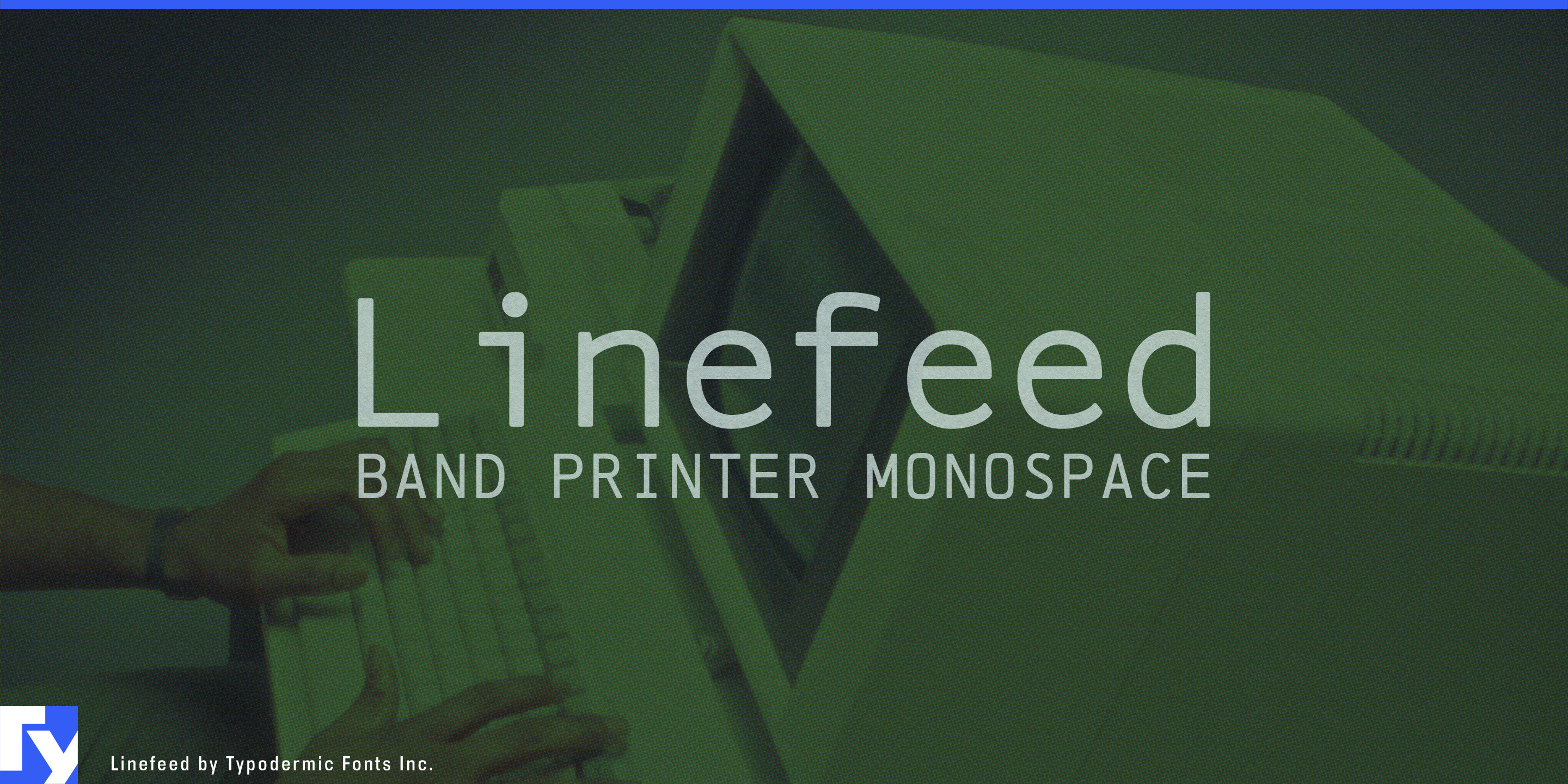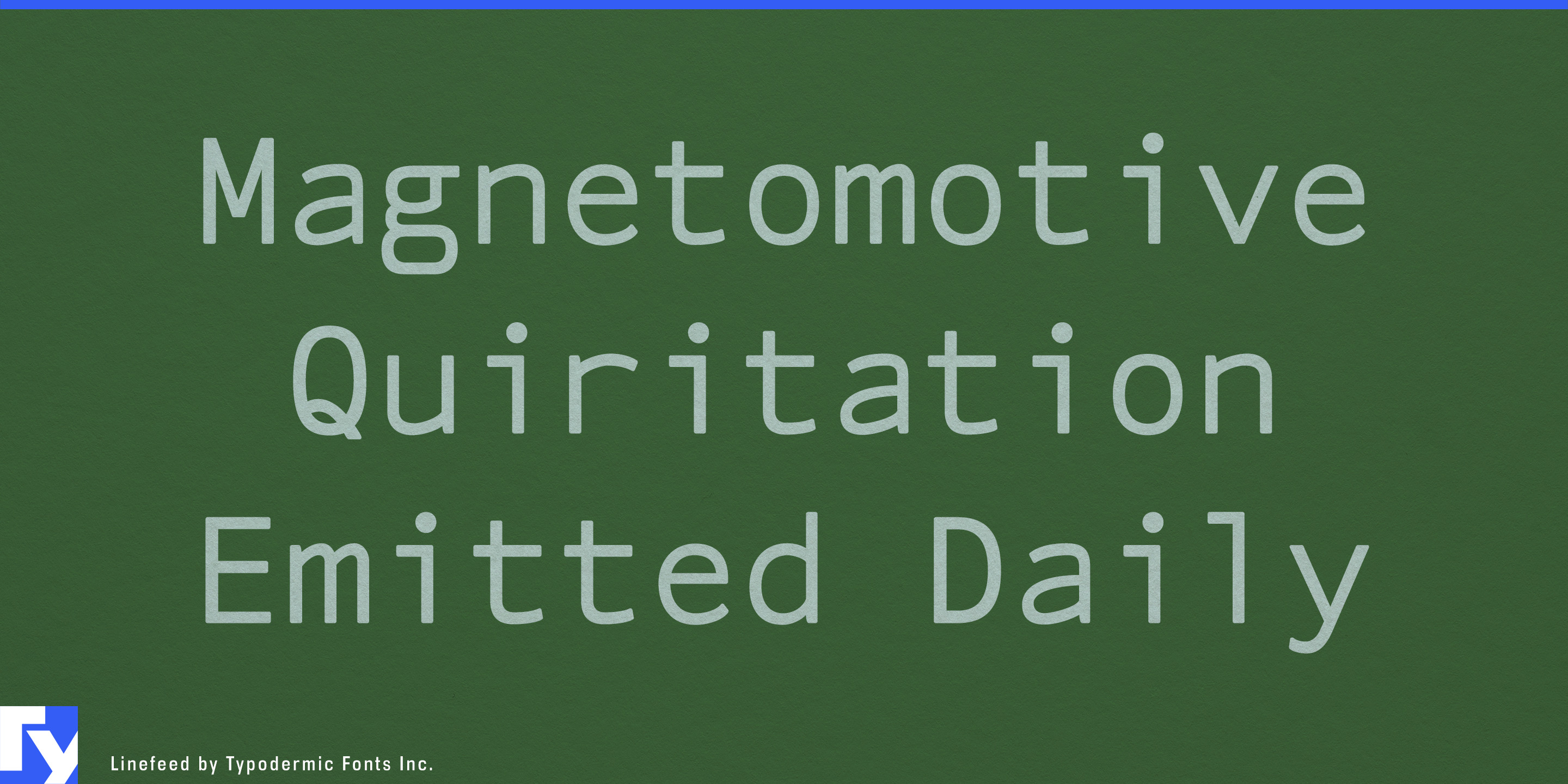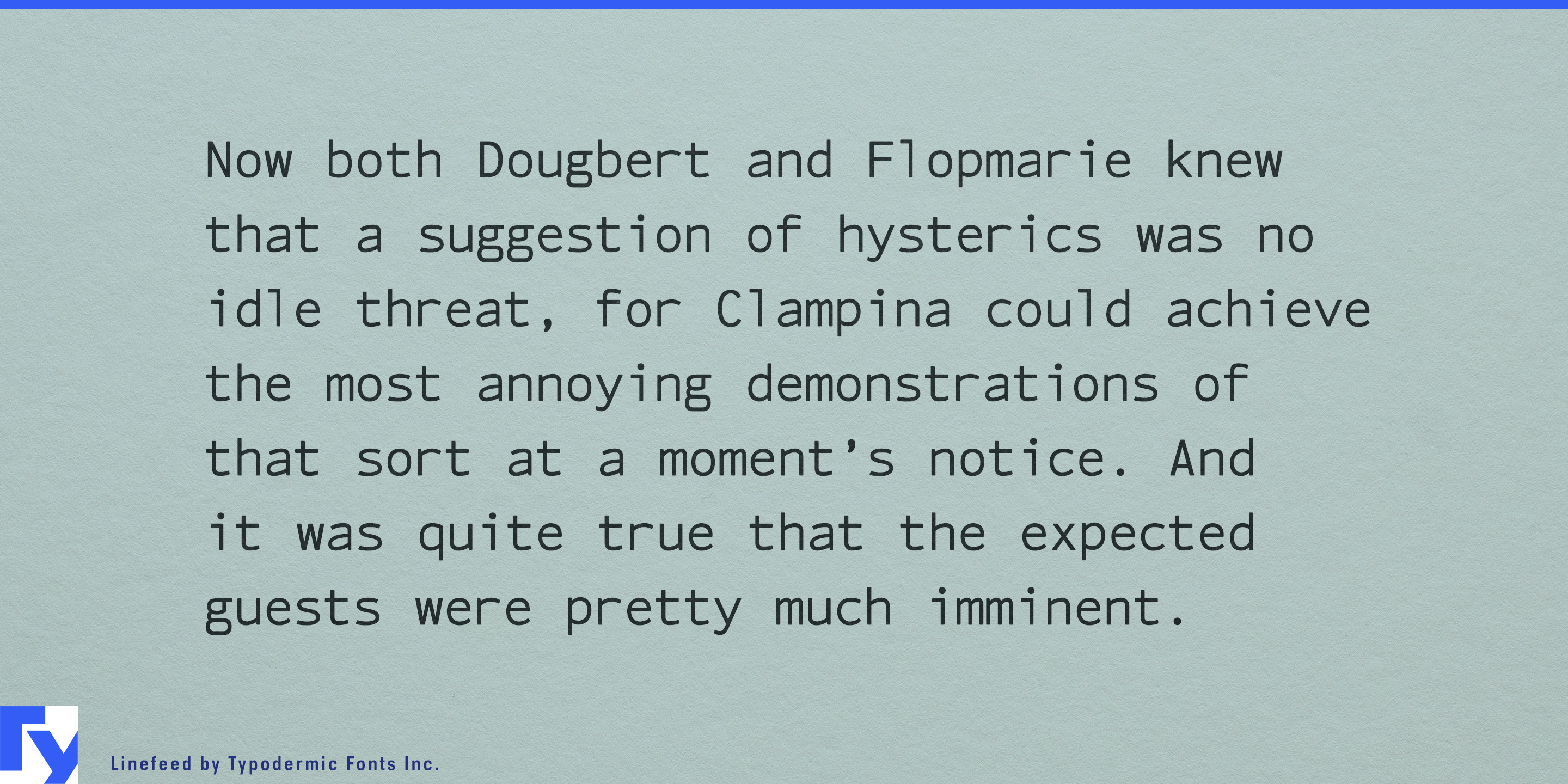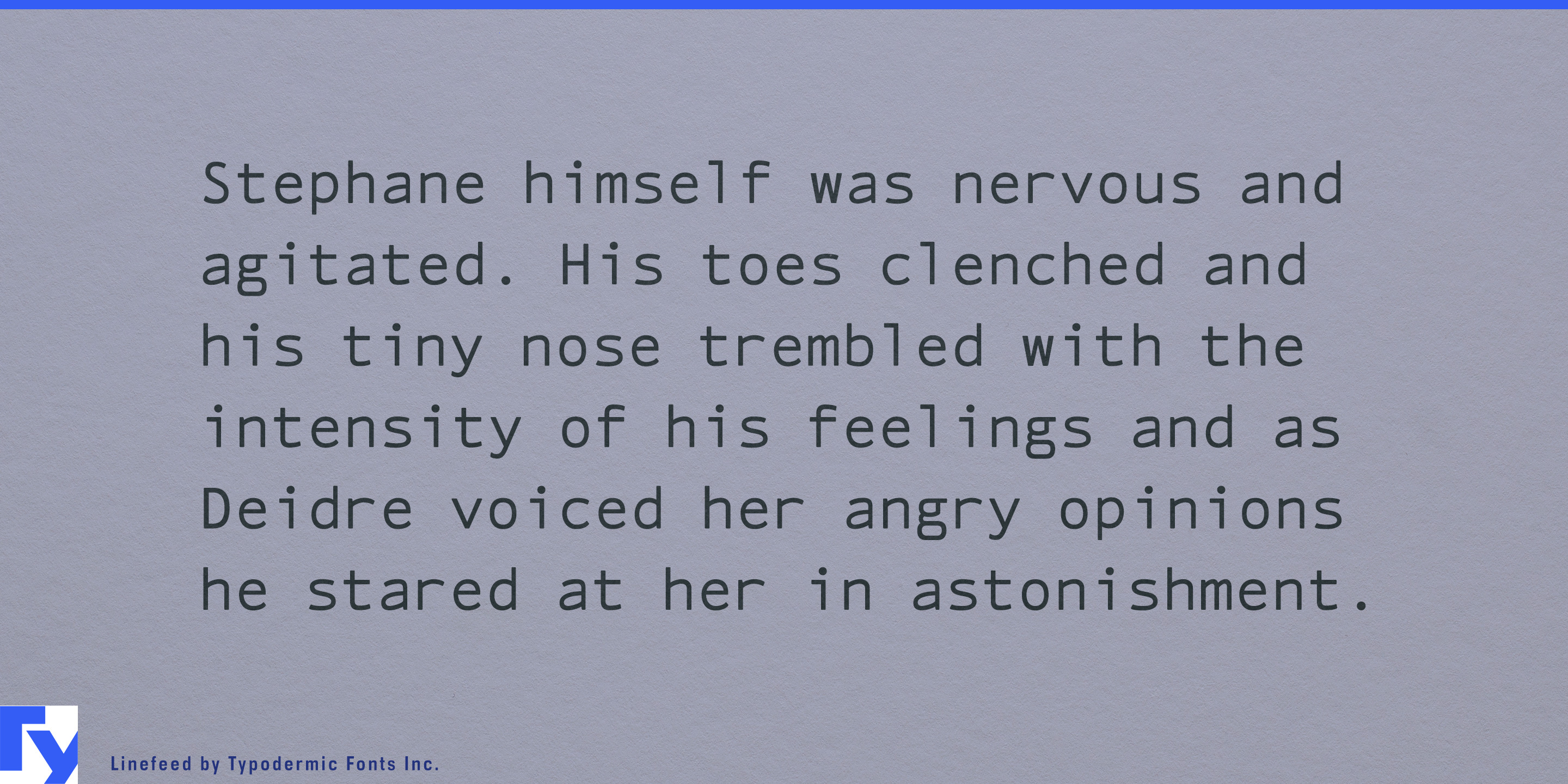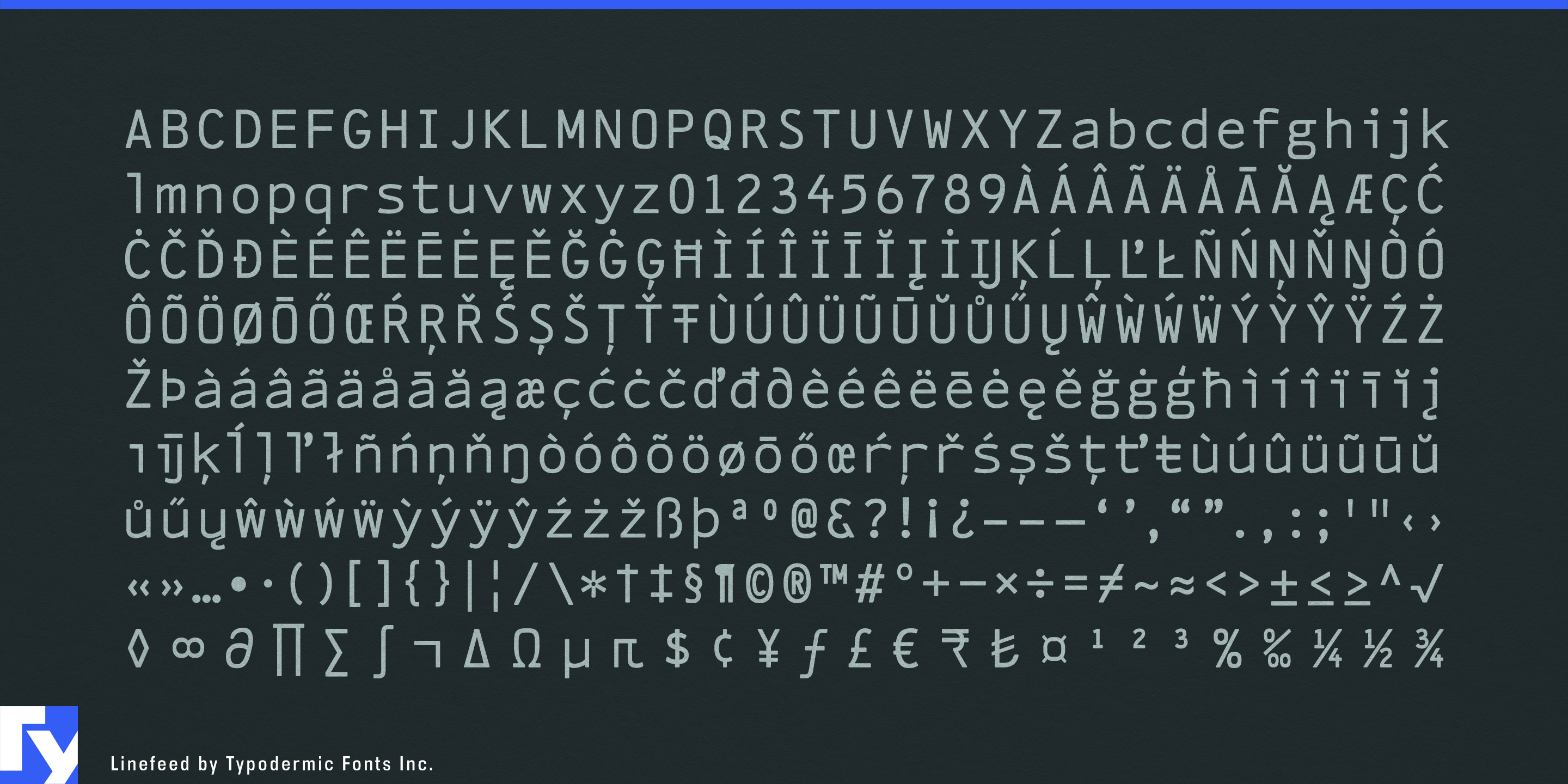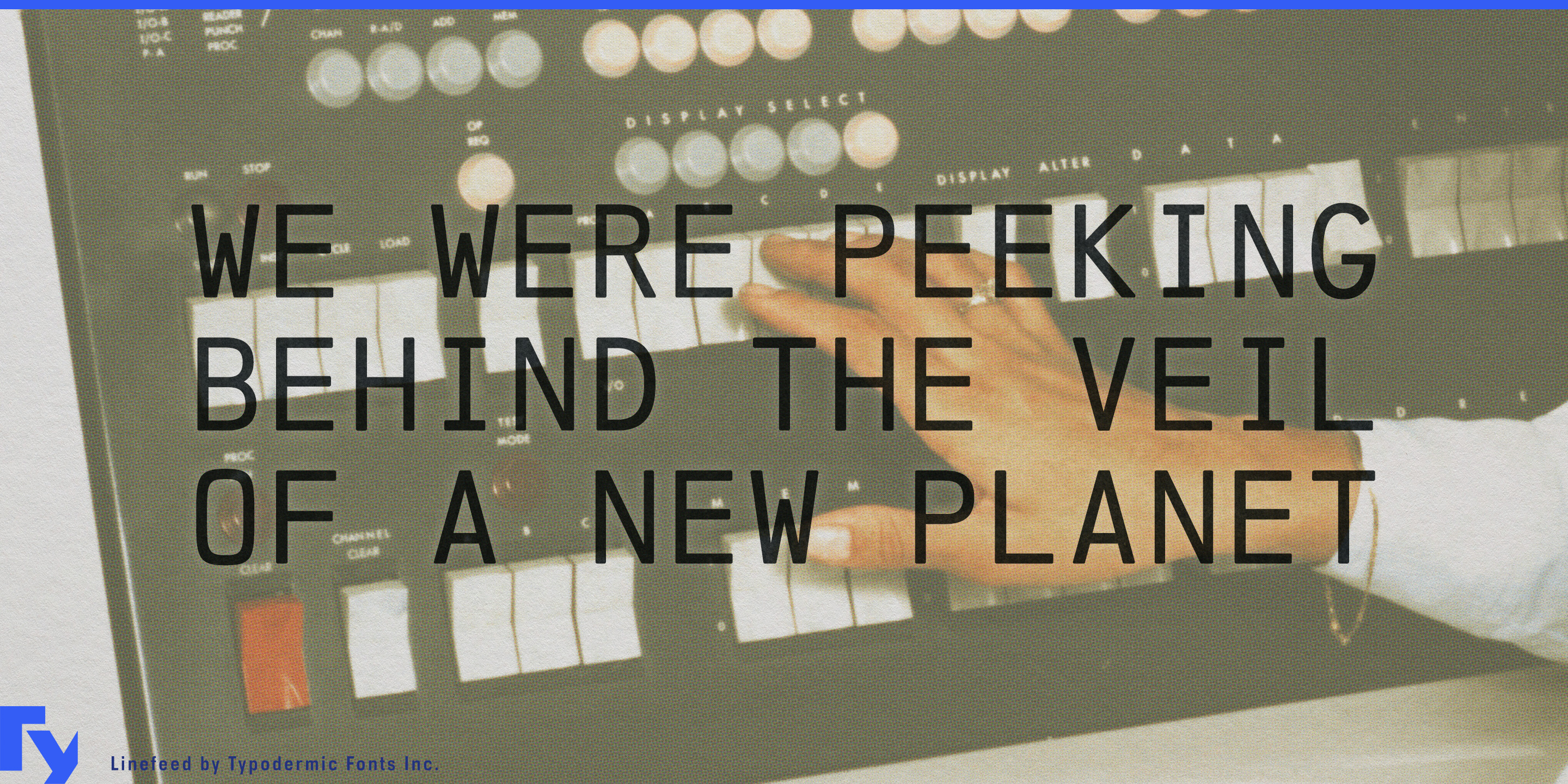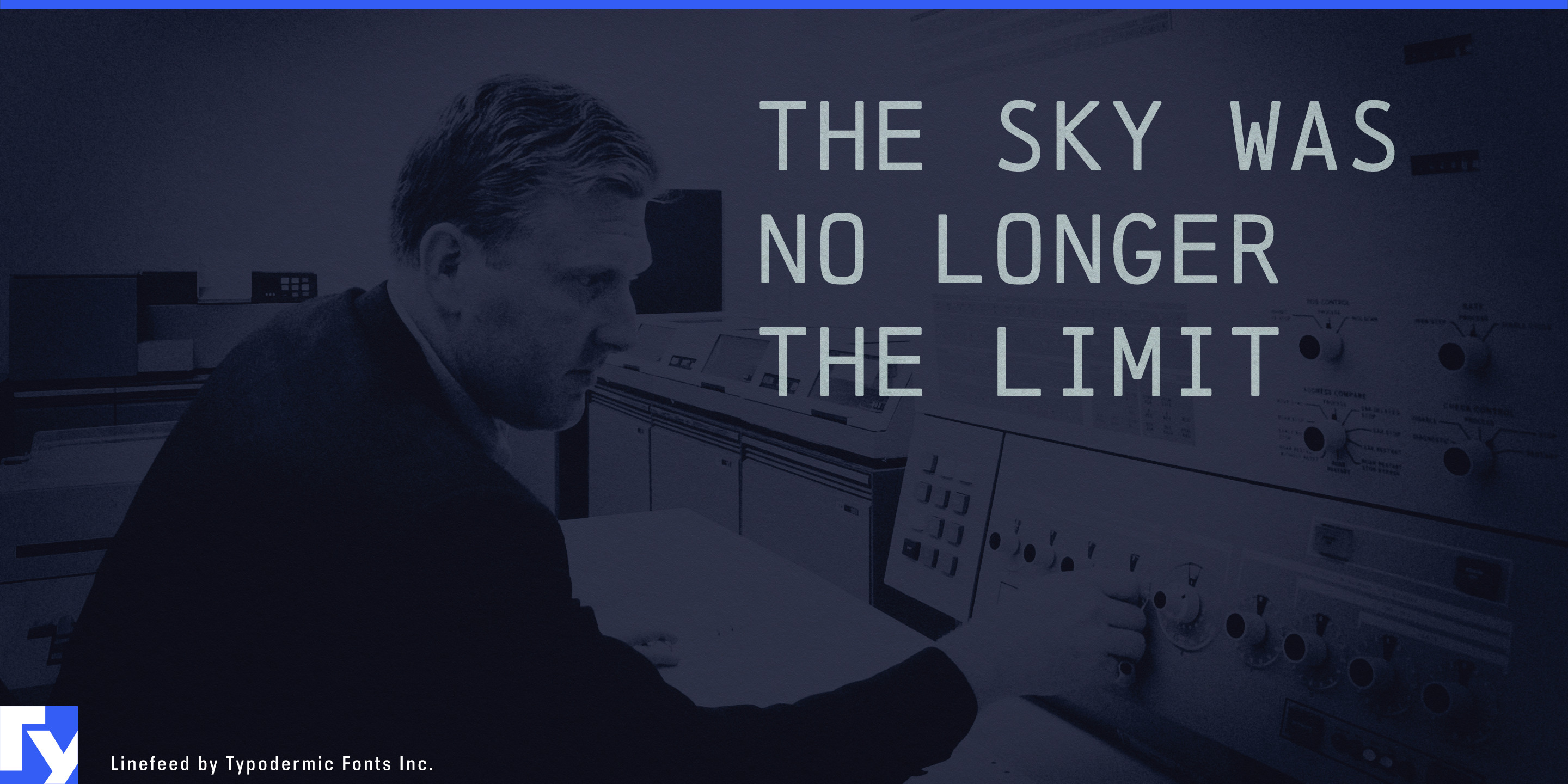
Linefeed
Linefeed takes the rigid order of classic band-printer type and softens it with a humanist touch. Its tall x-height, open shapes, and subtle stroke contrast give it a warmth and approachability that vintage monospace fonts never had. The result is a face that reads crisply at small sizes yet carries personality at display scale.
The monospaced discipline makes it ideal for layouts that need perfect column alignment, while its friendly curves keep it from feeling cold or mechanical. It works as confidently in modern UI design, branding for heritage-inspired products, or exhibition signage as it does in nostalgic digital art.
Inspired by the typography of mid-century data output devices, Linefeed recalls a time when machines left their mark in ink and paper—yet it’s engineered for the screens and print workflows of today. It’s retro without being stuck in the past.